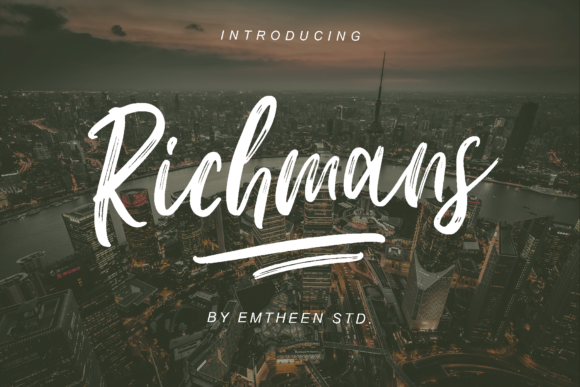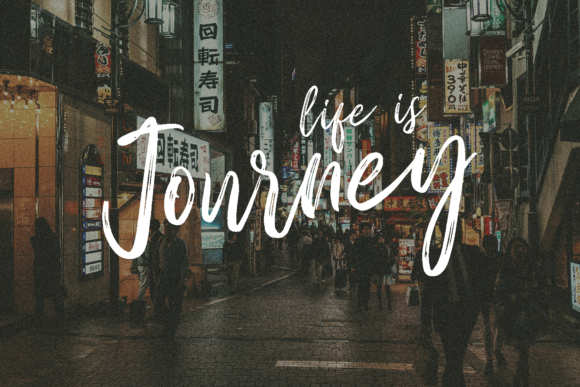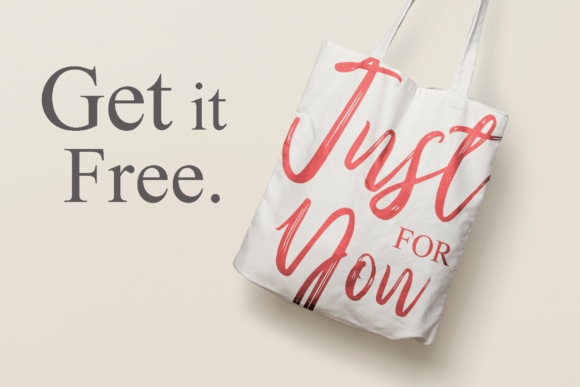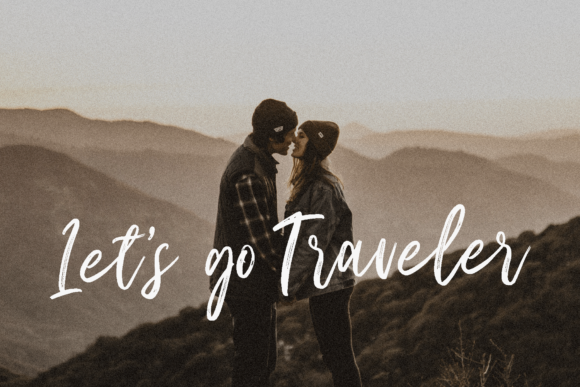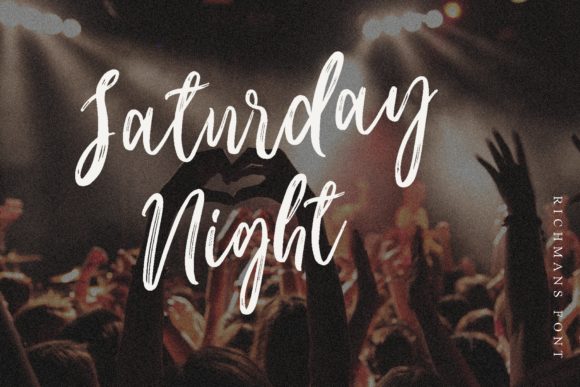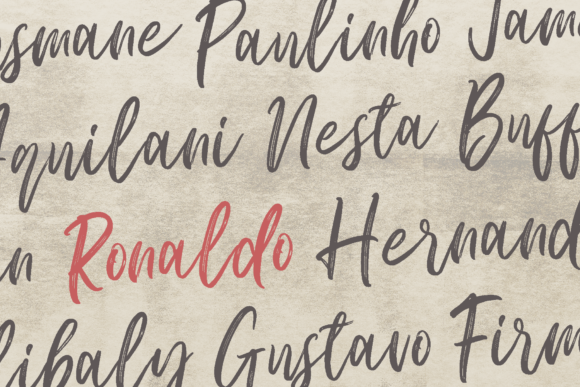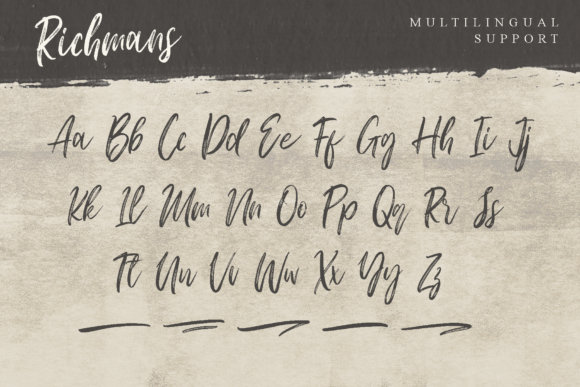
Richmans Font
About Richmans Font
The Richmans is a hard brush script font with several stripes in each letter that give it a strong, yet elegant look.
It is suitable for product packaging, branding, product designs, watermarks and everything related to advertising.